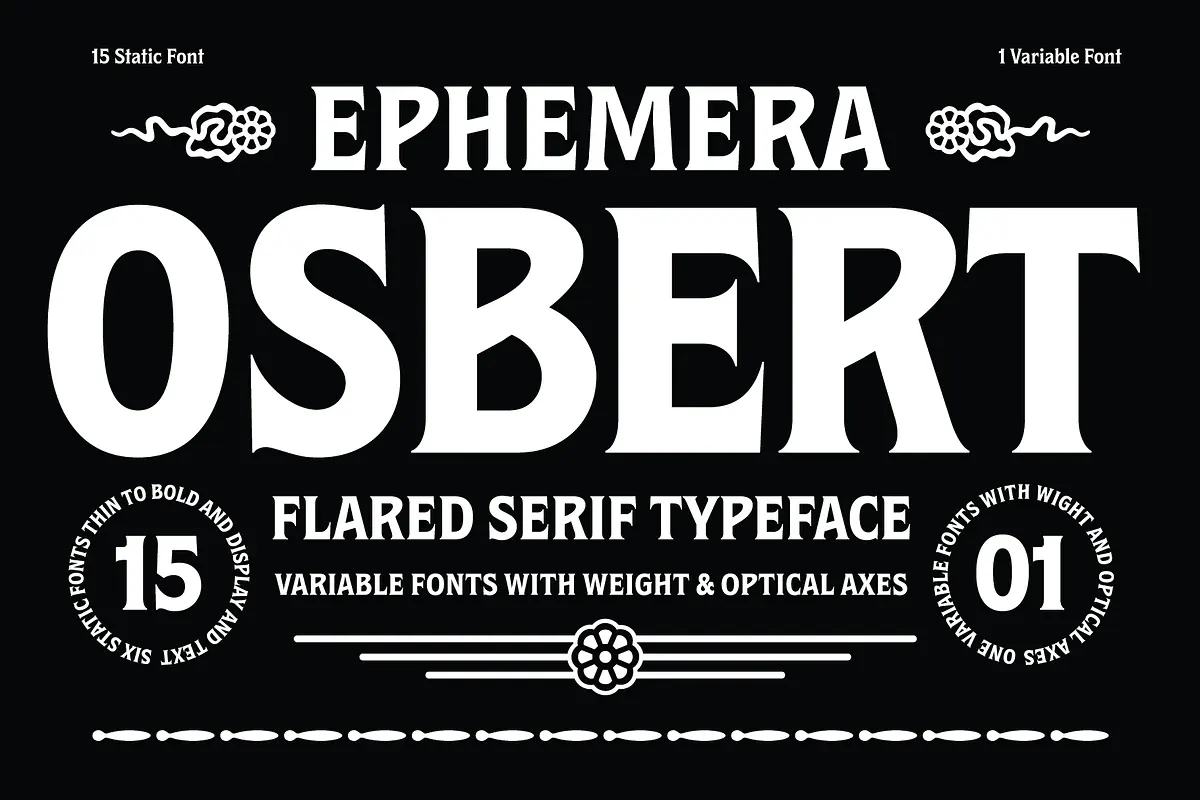
Osbert Variable Fonts Free Download
Osbert Variable Fonts Free Download is a modern, versatile typeface that offers multiple weights and styles in one font file, allowing you to customize your typography for any project. Its clean lines, smooth curves, and balanced proportions make it perfect for a wide range of applications, from websites and logos to print materials, advertising, and branding.
The variable nature of Osbert allows you to seamlessly adjust the font's weight, width, and other properties, providing you with ultimate flexibility and control over your design. Whether you're working on minimalist designs or creative, bold statements, this font offers a professional and contemporary look.
Enhance your typography with Osbert Variable Fonts Free Download, and take advantage of its adaptability and style to create stunning, custom visuals. Ideal for designers seeking a modern, flexible font for a variety of design needs.